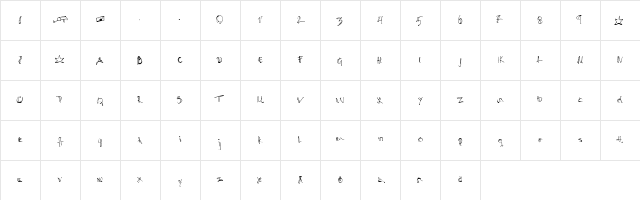
Complete Addiction Regular glyph index. Displaying only characters natively supported by Addiction Regular font.
Addiction is a composed and adaptable typeface that performs quietly and consistently across a wide range of design contexts.